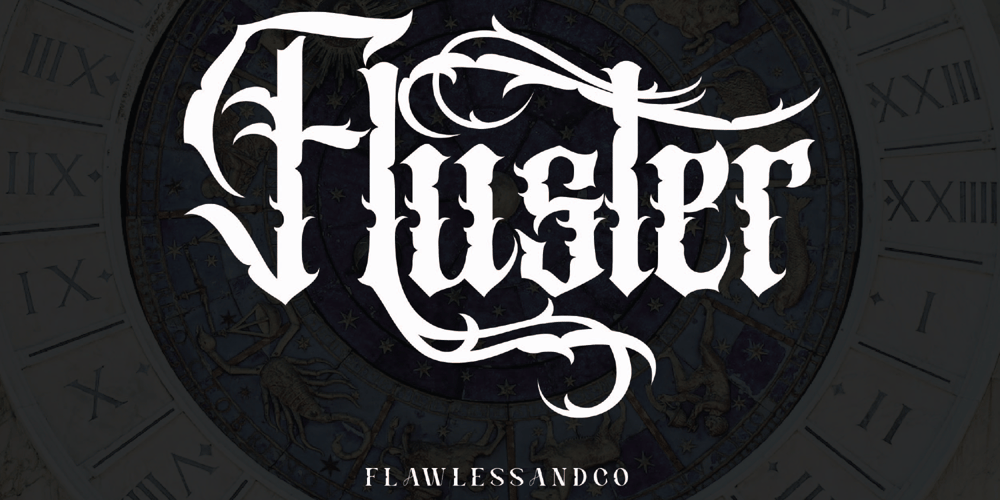
Fluster
Fluster font
Fluster Font Family was designed by Achmad Yani and published by Flawlessandco. Fluster contains 1 styles and family package options. Fluster is a Blackletter font with an authentic and unique style on each character that gives a bold touch to any design you create.There’s some connected letters and some alternates that suitable for any graphic designs such as branding materials, t-shirt, print, business cards, logo, poster, t-shirt, photography, quotes .etcThis font support for some multilingual. Also contains uppercase A-Z and lowercase a-z, alternate character, numbers 0-9, and some punctuation.for more license, you can check in flawlessand.coIf you need help, just write me! Thanks so much for checking out my shop!